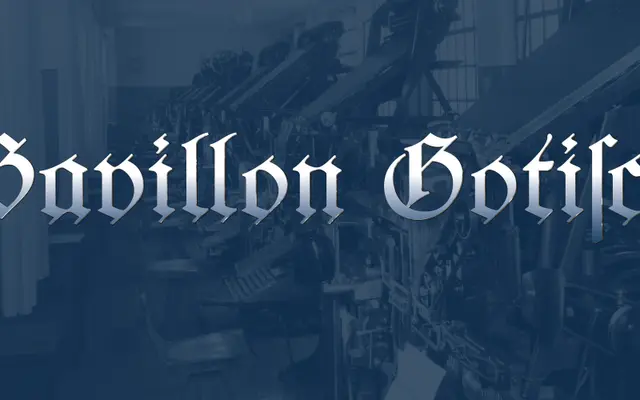
Pavillon Gotisch
FDI Type Foundry · Julius Nitsche, Ralf Herrmann · 2019
A digitisation of an 1916 Julius Klinkhardt blackletter, released in two styles: one faithful to the original, one with romanised letterforms for wider legibility.
Digitised from prints made at the Pavillon-Presse printing museum in Weimar, this typeface traces back to a letterpress font issued by the Leipzig foundry Julius Klinkhardt in 1916. The A variant extends the original design to a full Latin 1 character set and preserves the historic ligatures and swash letters via OpenType features. The B variant substitutes romanised glyph shapes to improve legibility for readers unfamiliar with traditional German blackletter conventions.
A digitisation of a 1916 German letterpress blackletter, classified explicitly as blackletter by the foundry, with one traditional and one romanised variant.